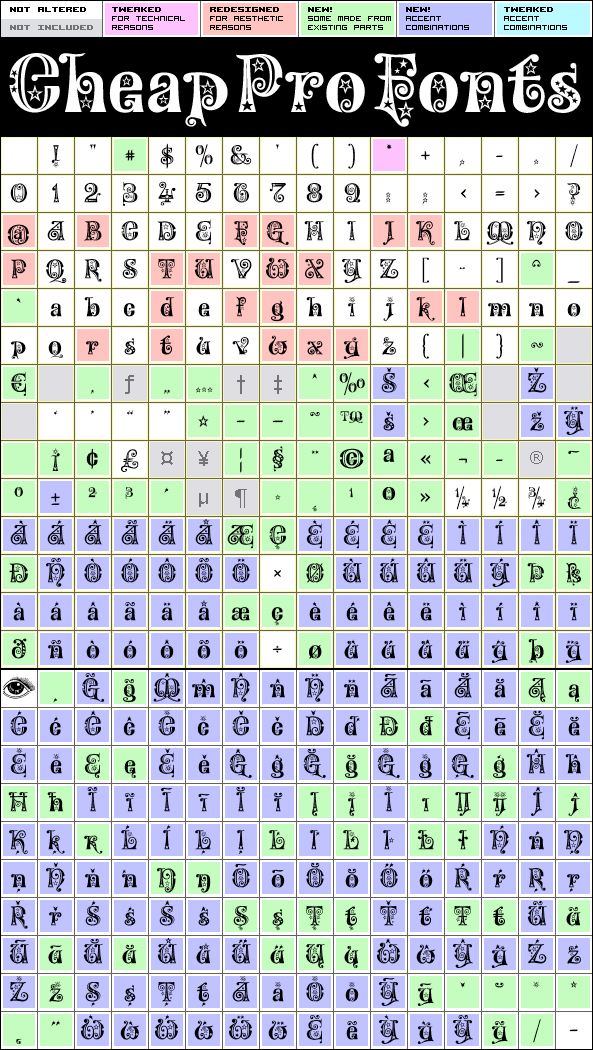
Kingthings Willow Pro
Kingthings Willow Pro by Kevin King
369 glyphs!
(100 in original)
163 class kernpairs
= 3380 kerning pairs
(3 in original)
If the previous release (Kingthings Willowless Pro) is a christmas font, well... Then this font is a christmas tree complete with decorations and lights! :D
This font is sooooo ornamented - but still quite readable. Enjoy!
Kingthings Willow Pro is a professionally reworked font that contains an extended character set for setting text in 65 languages requiring more than the basic A-Z!